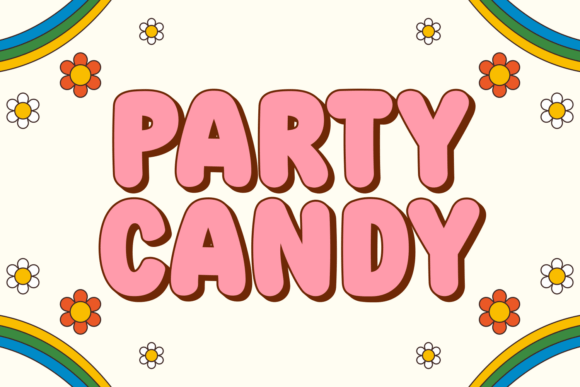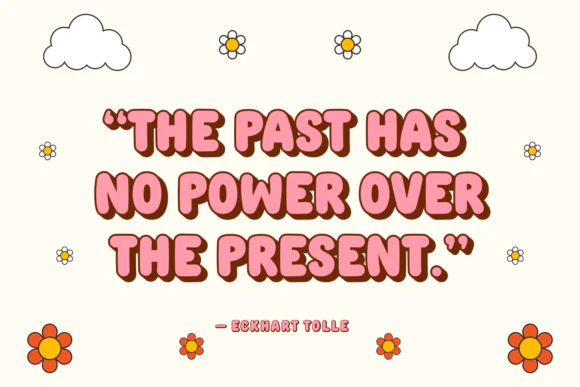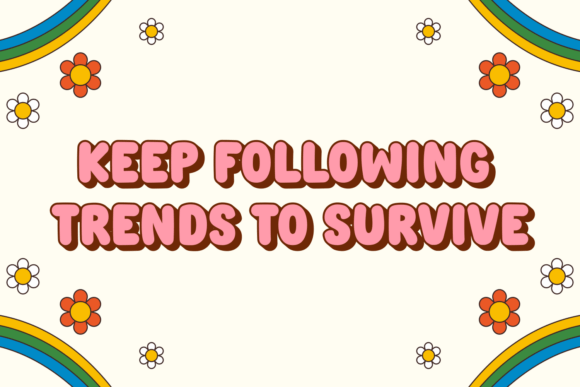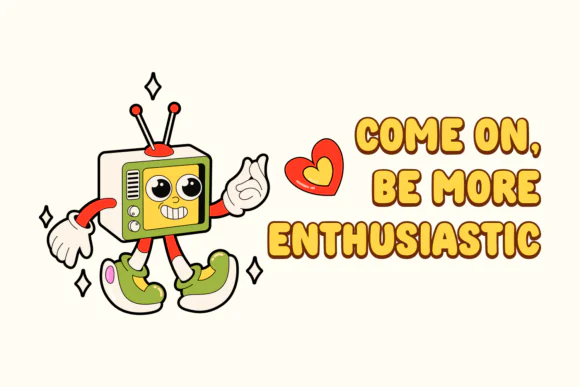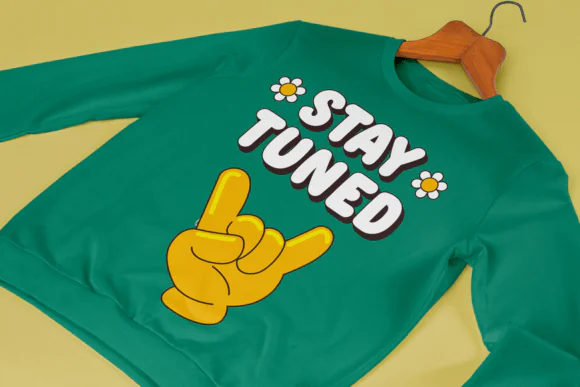
Create cheerful, playful, and friendly designs with Disney Bubble Font, a fun rounded display typeface designed to bring warmth, joy, and colorful personality to your creative projects. With its soft rounded corners and expressive bubble-style letterforms, this font is perfect for designs that need a cute, happy, and approachable look.
Disney Bubble Font works beautifully for social media posts, party invitations, birthday designs, kids’ graphics, stickers, posters, digital designs, greeting cards, classroom materials, product labels, packaging, YouTube thumbnails, printable wall art, and playful branding projects. Its rounded and cheerful style helps your text feel warm, fun, and visually inviting.
Whether you are creating a children’s party invite, a cute Instagram graphic, a playful sticker design, or a colorful digital artwork, this font adds a joyful bubble-letter effect that helps your message stand out with charm and personality.